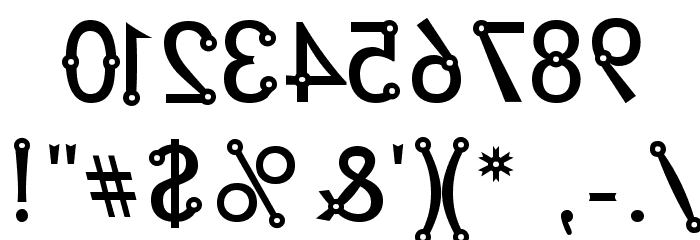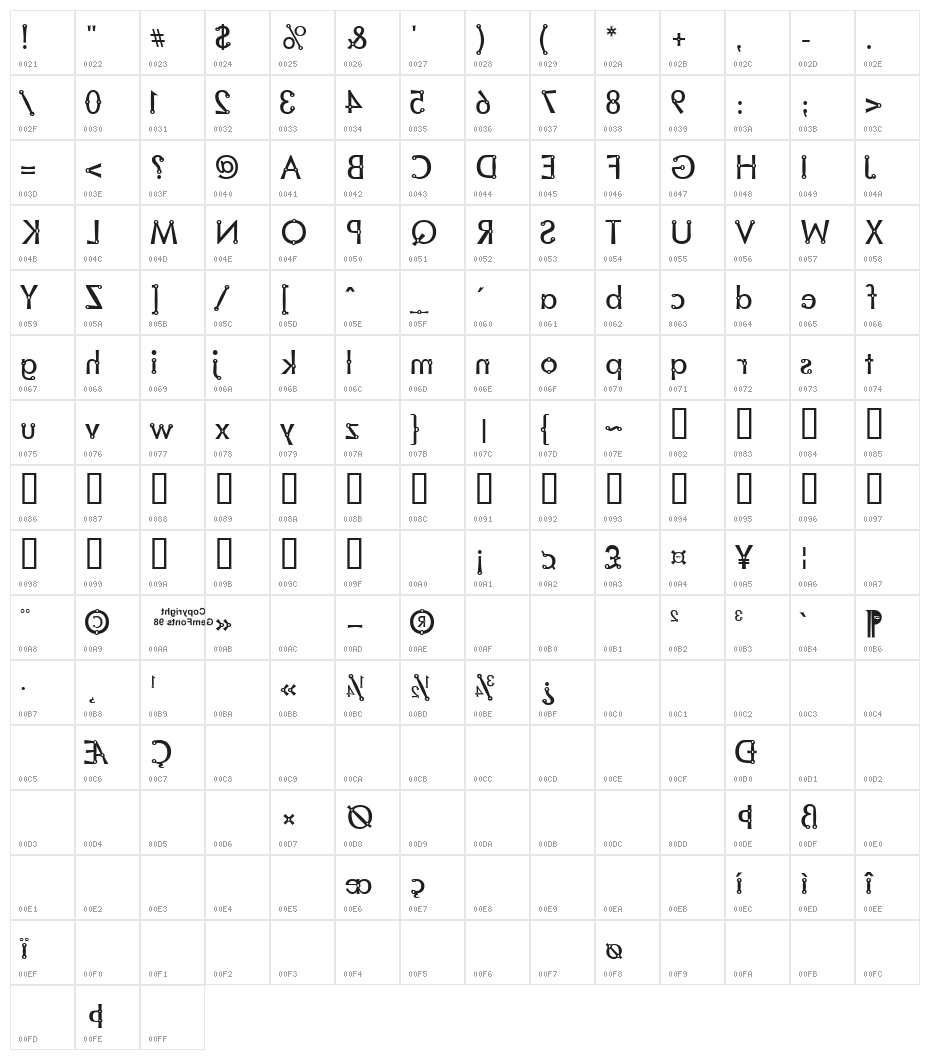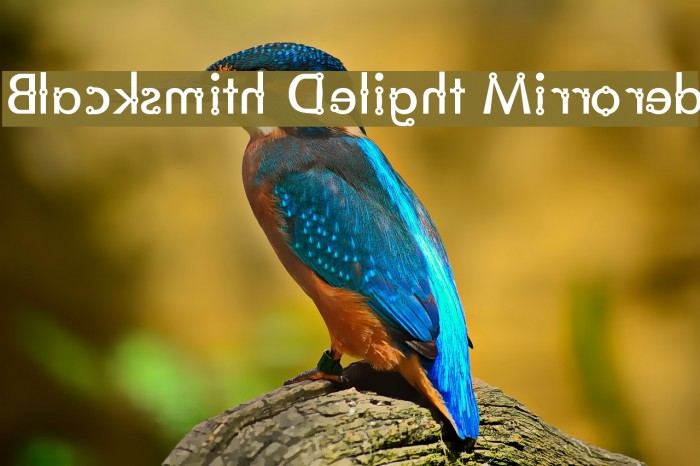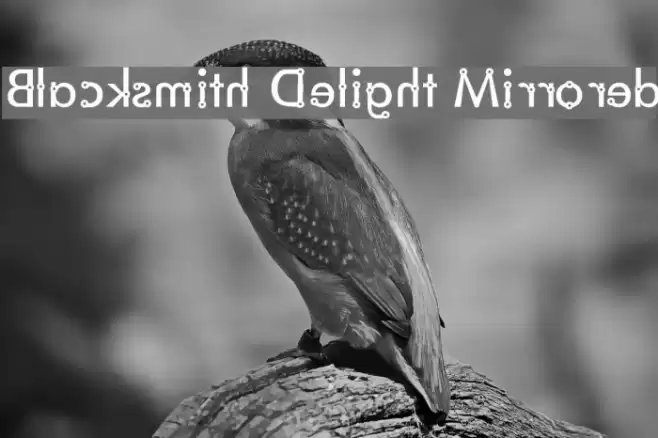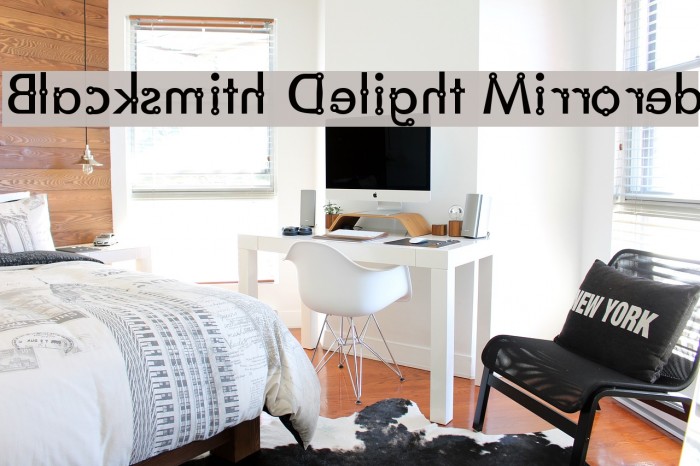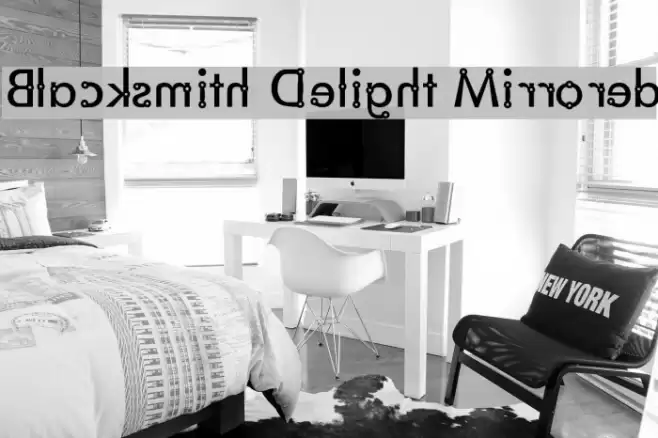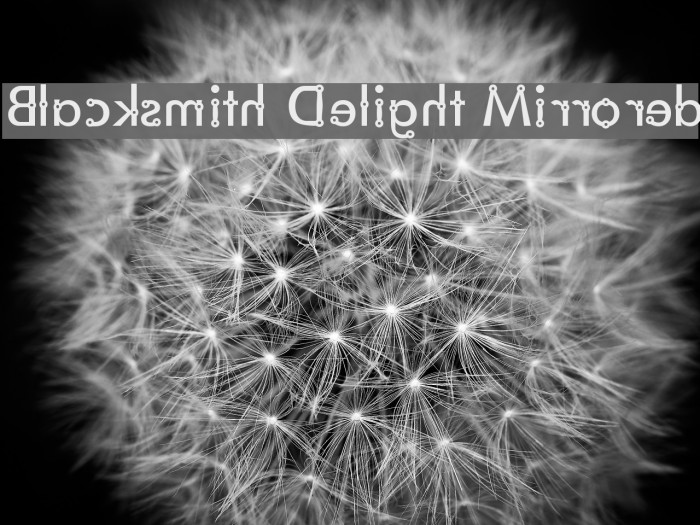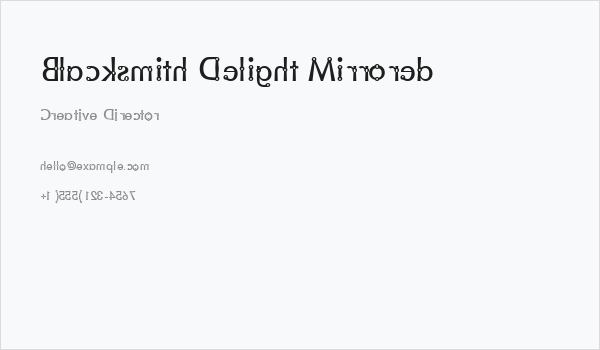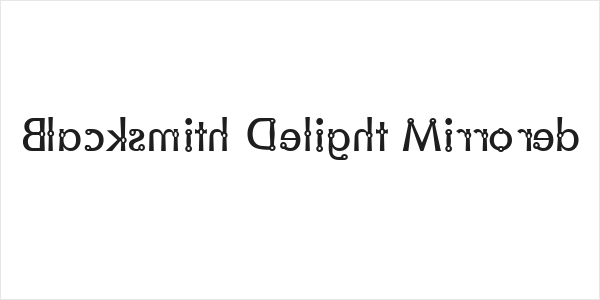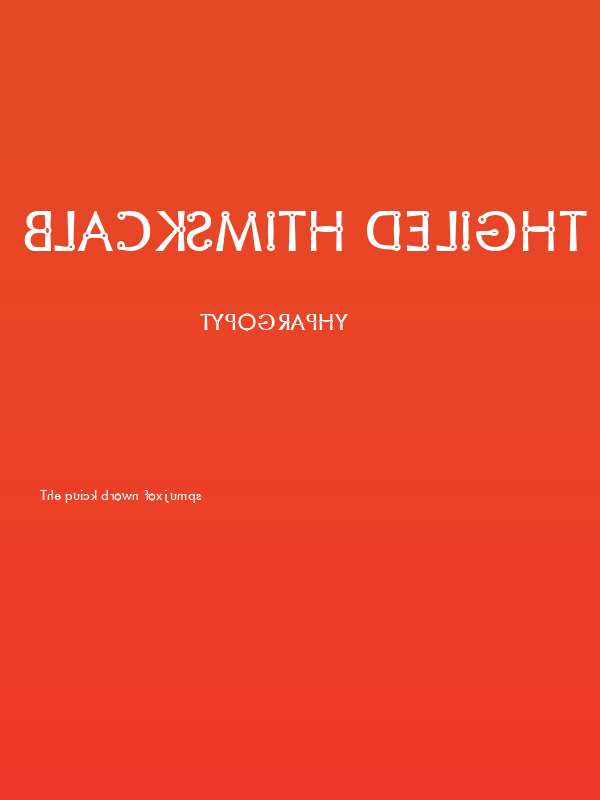
Blacksmith Delight Mirrored Font
Blacksmith Delight Mirrored Description
This font features a unique and decorative style with mirrored elements that create a striking visual effect. Each character is adorned with small circular embellishments at the ends of strokes, giving it an industrial and mechanical feel. The letters are bold and have a consistent weight, making them stand out prominently. The overall design is symmetrical, adding to the mirrored aesthetic. This font is ideal for projects that require a bold statement and a touch of creativity, such as posters, logos, and headlines. The spacing between characters is normal, ensuring readability while maintaining its decorative appeal.
| Proposed Projects | Ideal for posters, logos, headlines, and creative design projects. |